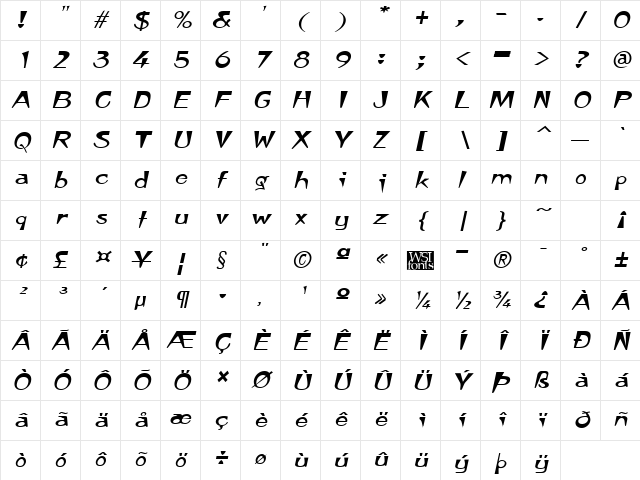
TempuraExpanded Italic
TempuraExpanded Family
TempuraExpanded Italic
Design Context for TempuraExpanded
TempuraExpanded is a composed and adaptable typeface that performs quietly and consistently across a wide range of design contexts. The slanted form adds forward momentum and visual energy.
Pro Tip: Use TempuraExpanded for emphasis, pull quotes, and subheadings where its slanted energy can add rhythm to the layout.